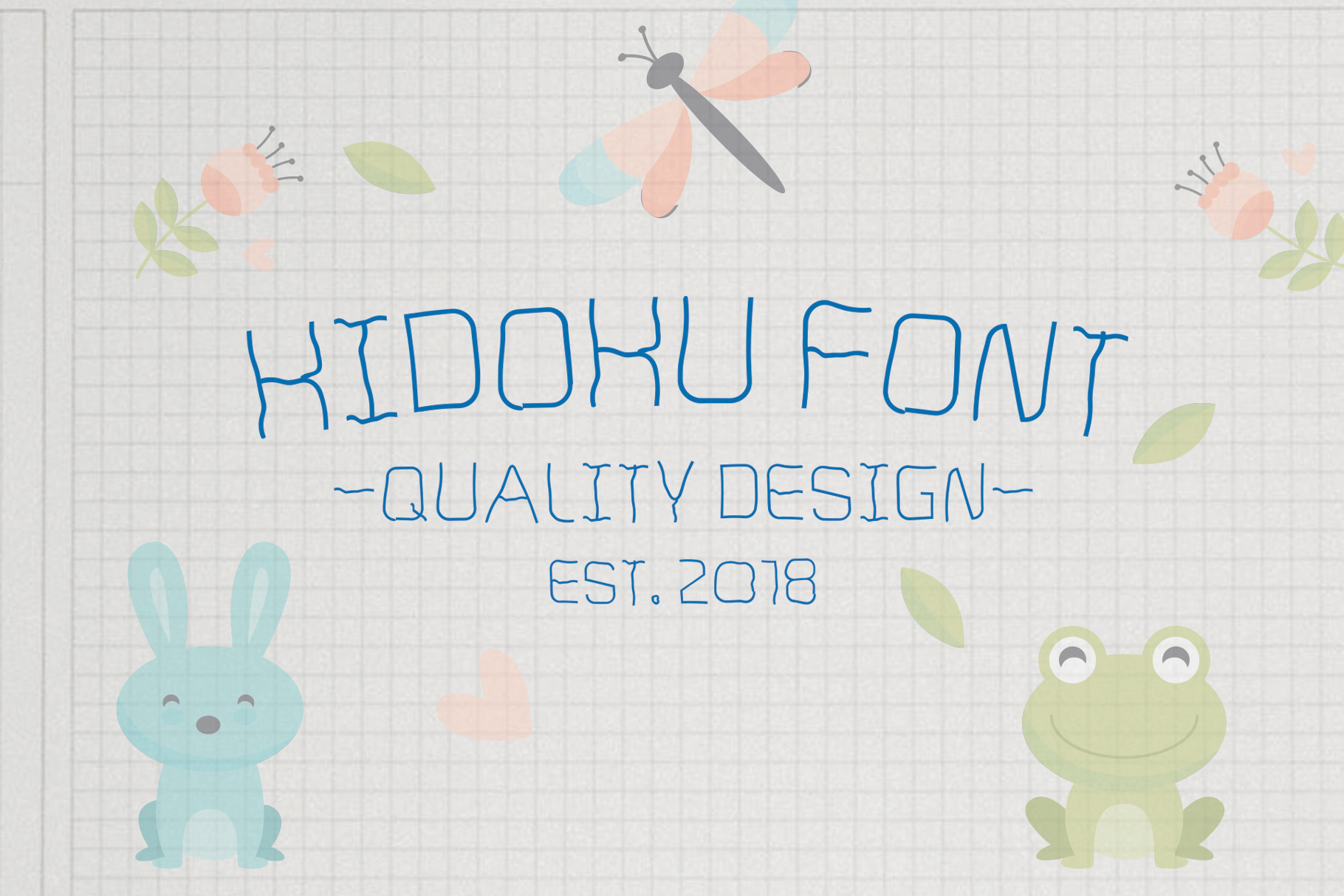
Kidoku Font
Kidoku Font is doodle line of kid writing style. It 's perfect for kid products, baby products, classroom sheets, cards, posters, wall art, branding, diy projects, greeting cards, labels, quotes, packaging, websites and much more about kids.